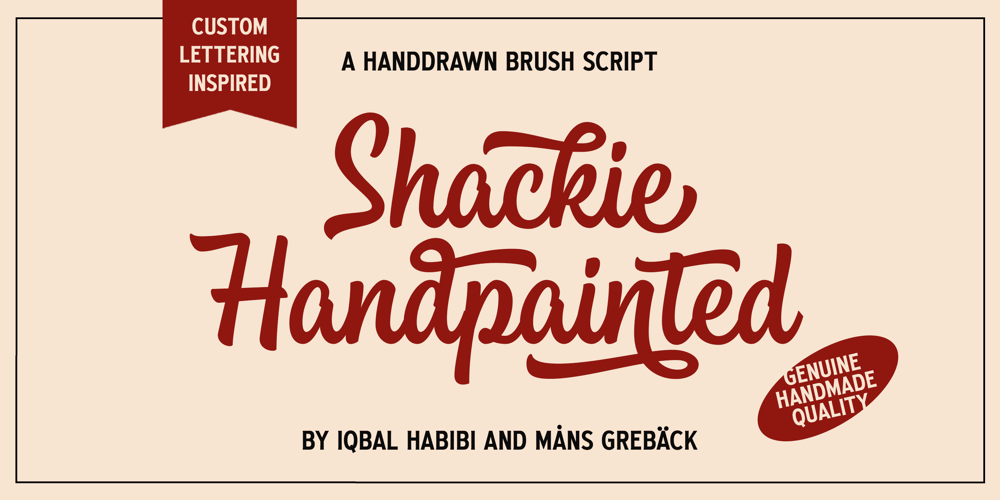
Shackie Handpainted Font Family was designed by Måns Grebäck and published by Mans Greback. Shackie Handpainted contains 6 styles and family package options. Shackie Handpainted is a striking custom lettering font, embodying the charm and flair of a script brush. This logotype font is perfect for projects requiring a cool and edgy touch, such as T-shirt designs and sign painting. With its unique hand-painted style, Shackie Handpainted brings a distinctive appeal to your creative work.The font’s dynamic brushstrokes lend it the authentic feel of a sign painter’s masterpiece, making it an excellent choice for projects that call for custom lettering and a personal touch.The Shackie Handpainted font family includes six expressive styles to suit various design needs:The weights Thin, Regular and Bold, with each thickness as Italic. The font is built with advanced OpenType functionality and has a guaranteed top-notch quality, containing stylistic and contextual alternates, ligatures and more features; all to give you full control and customizability. It has extensive lingual support, covering all Latin-based languages, from Northern Europe to South Africa, from America to South-East Asia. It contains all characters and symbols you’ll ever need, including all punctuation and numbers.